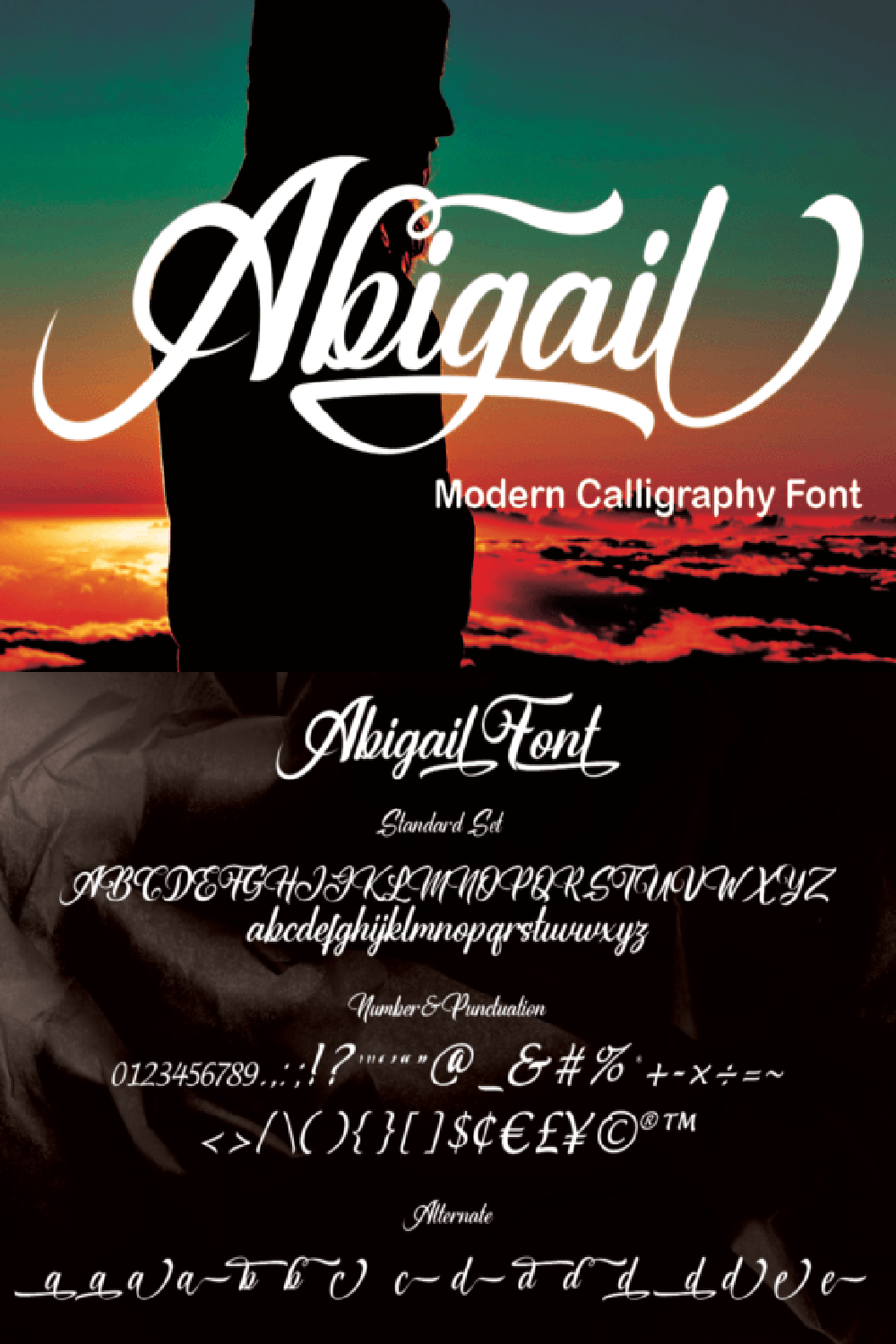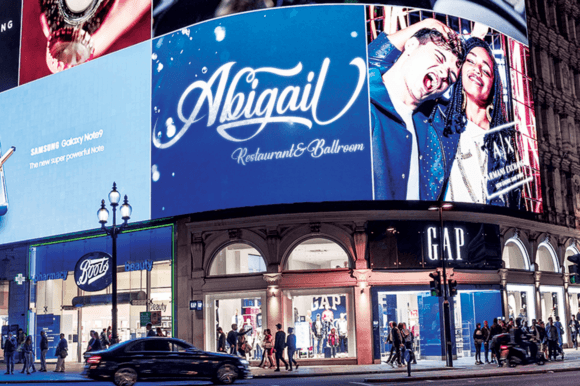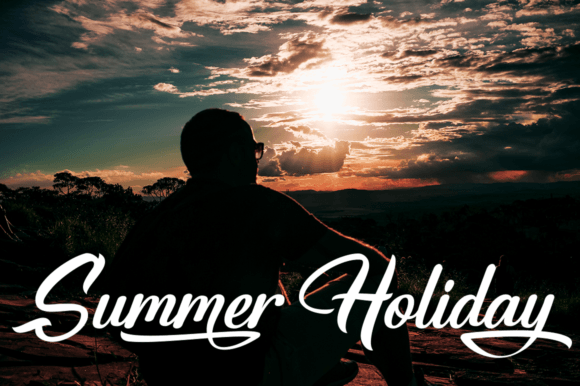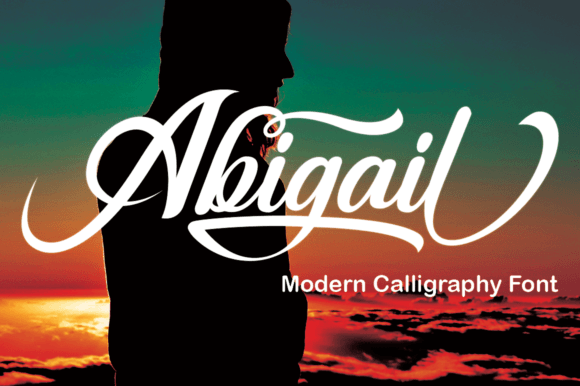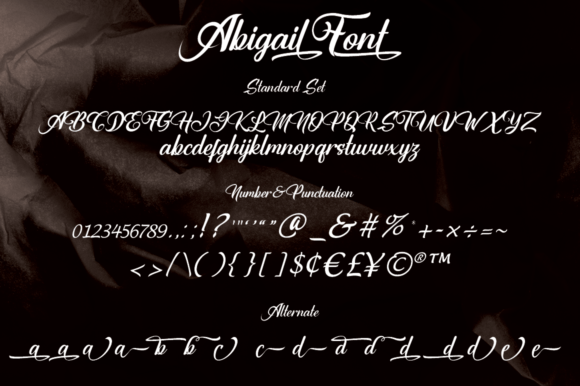
Abigail Font
About the Abigail Font
Welcome to the world of Abigail Font, a typeface that will inspire your next great project. Abigail is a neat and beautiful handwritten font described by an elegant touch, perfect for your favorite projects such as wedding invitations, apparel designs, Social Media, and others. Fall in love with its incredibly distinct and timeless style, and use it to create spectacular designs!
Abigail Font Usage Examples